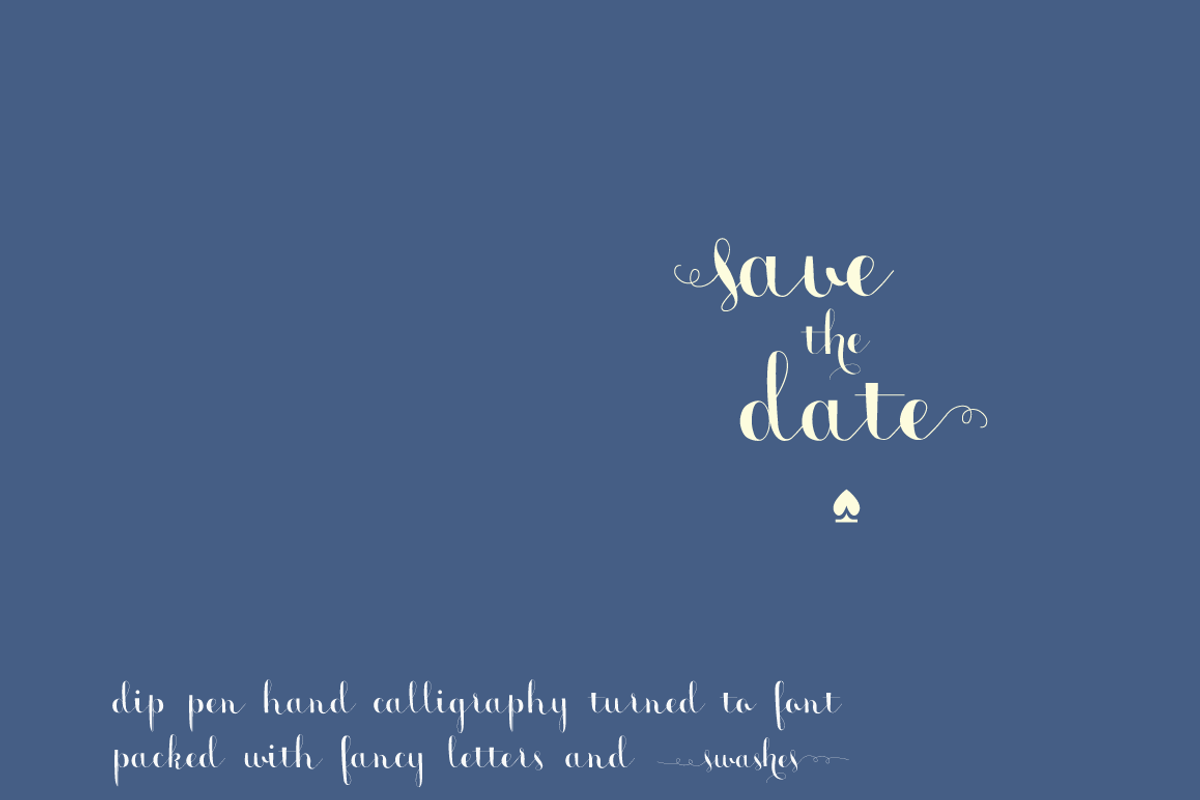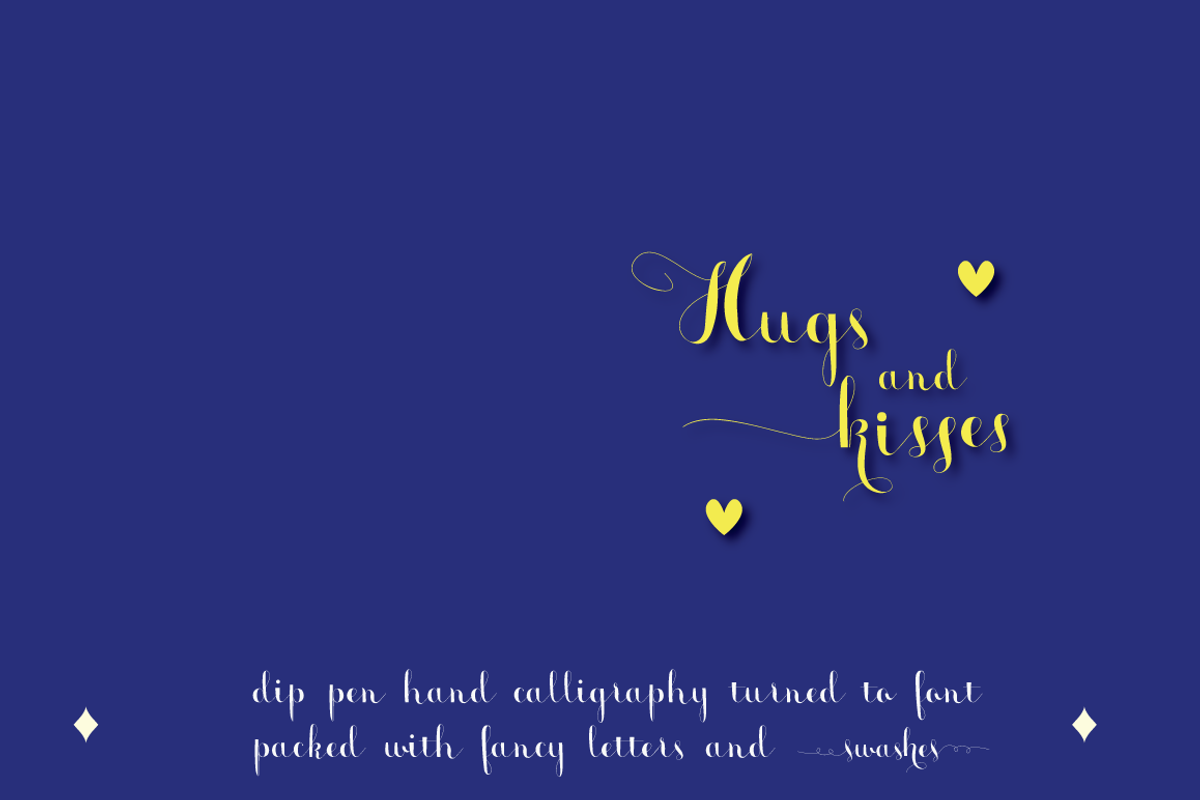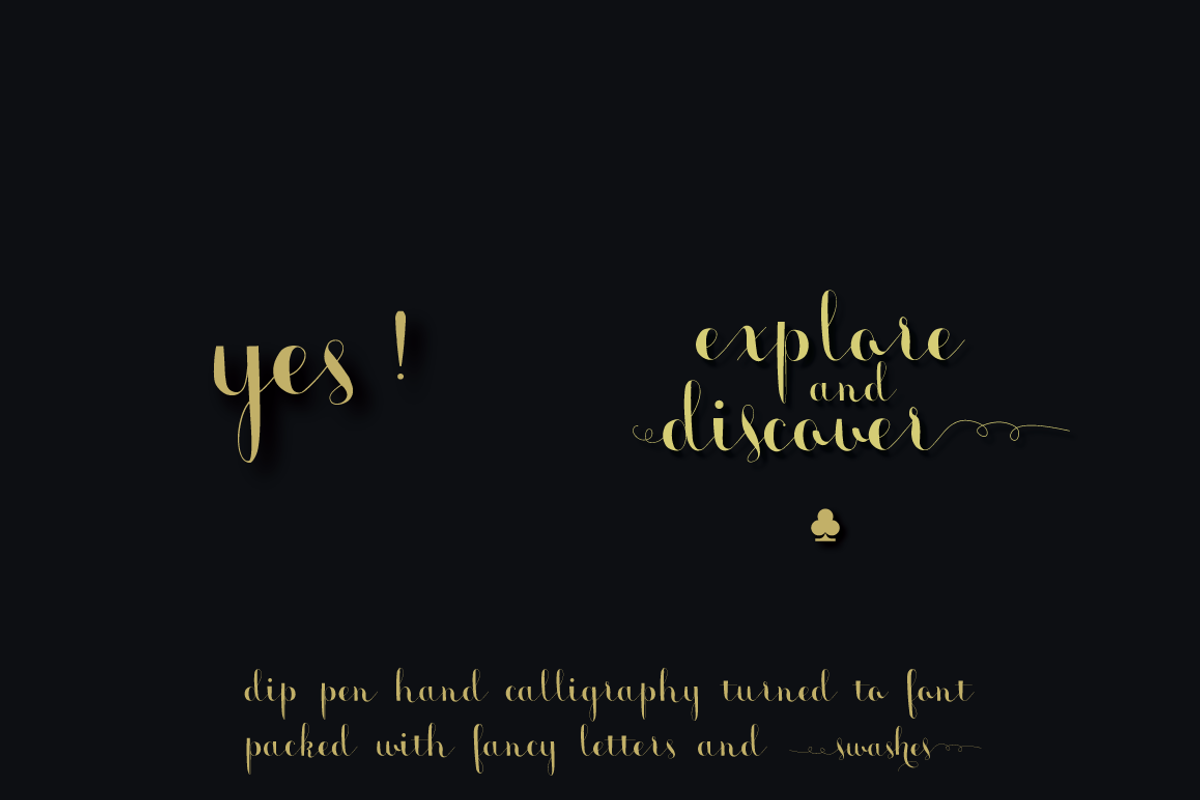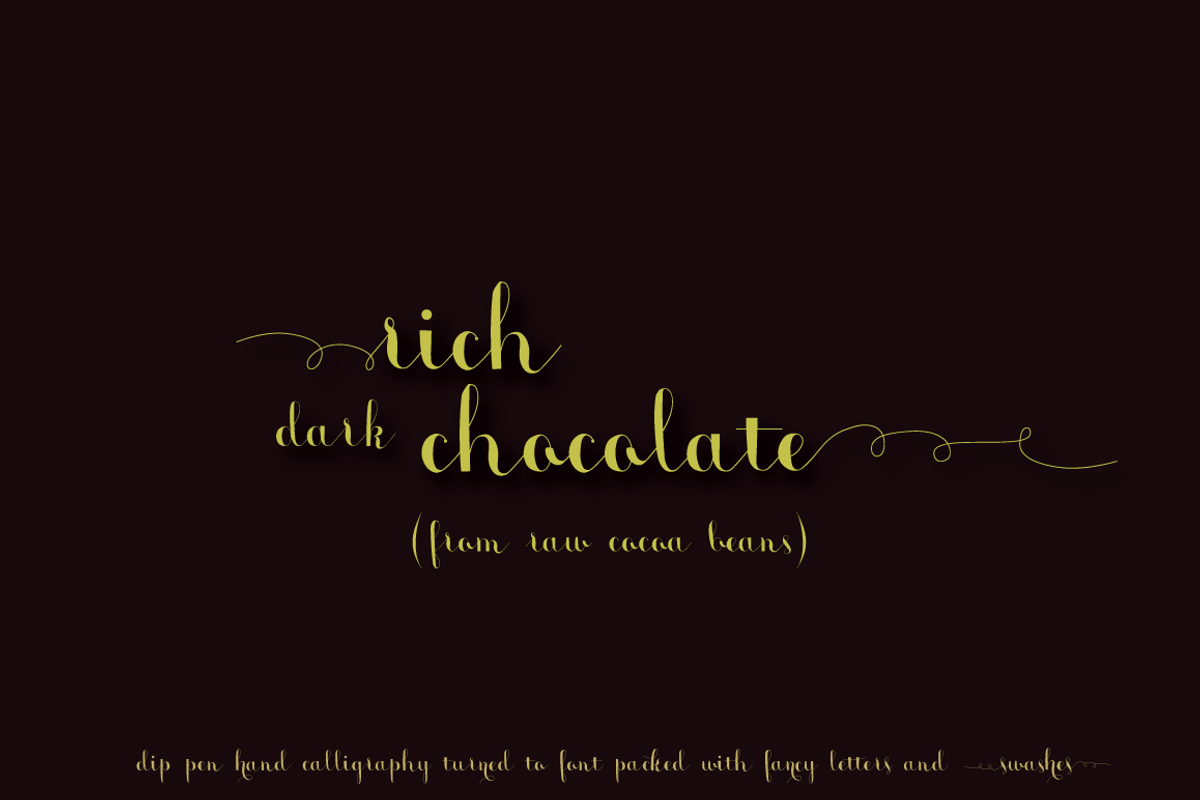
Monmica Font Family
Monmica Font Family by Aga Silva is a font selected for branding, posters, packaging, typography.
- monmica fancy Regular
- monmica Regular
- monmica basic Regular
Why Monmica Font Family is worth a look
Monmica Font Family by Aga Silva fits naturally into Branding, posters, packaging, typography.